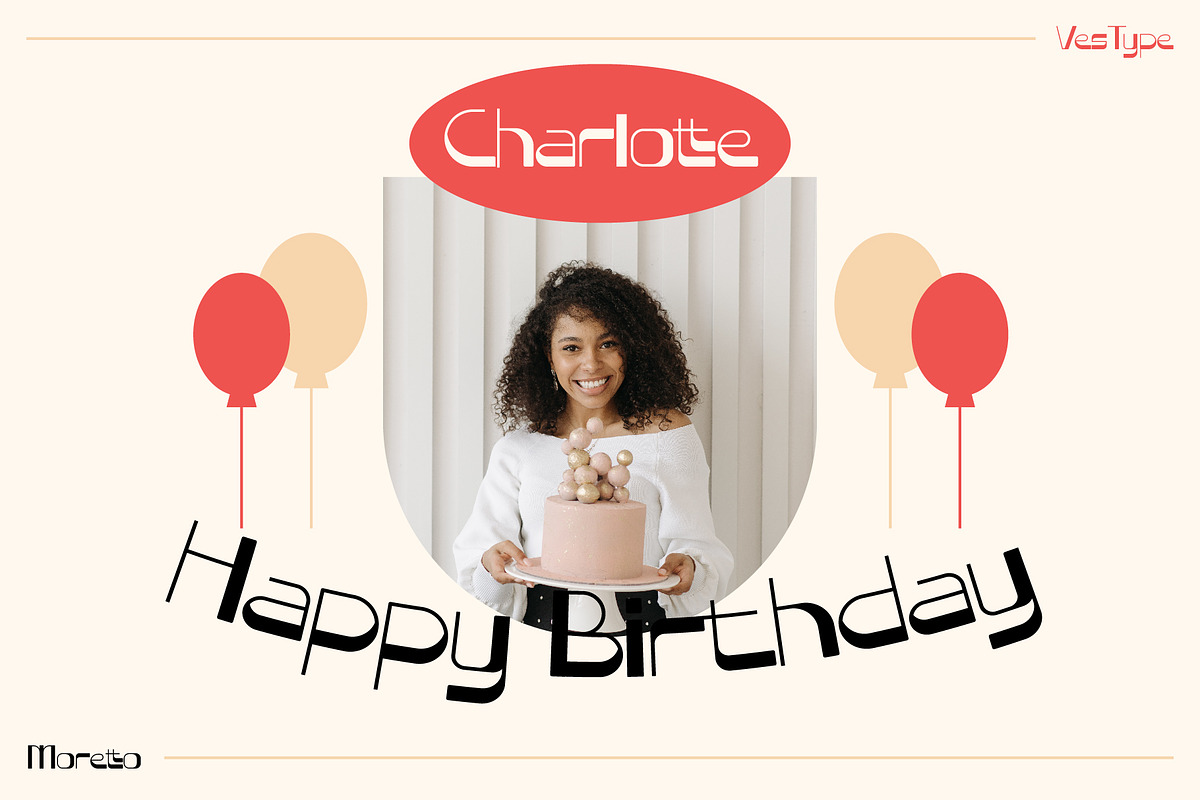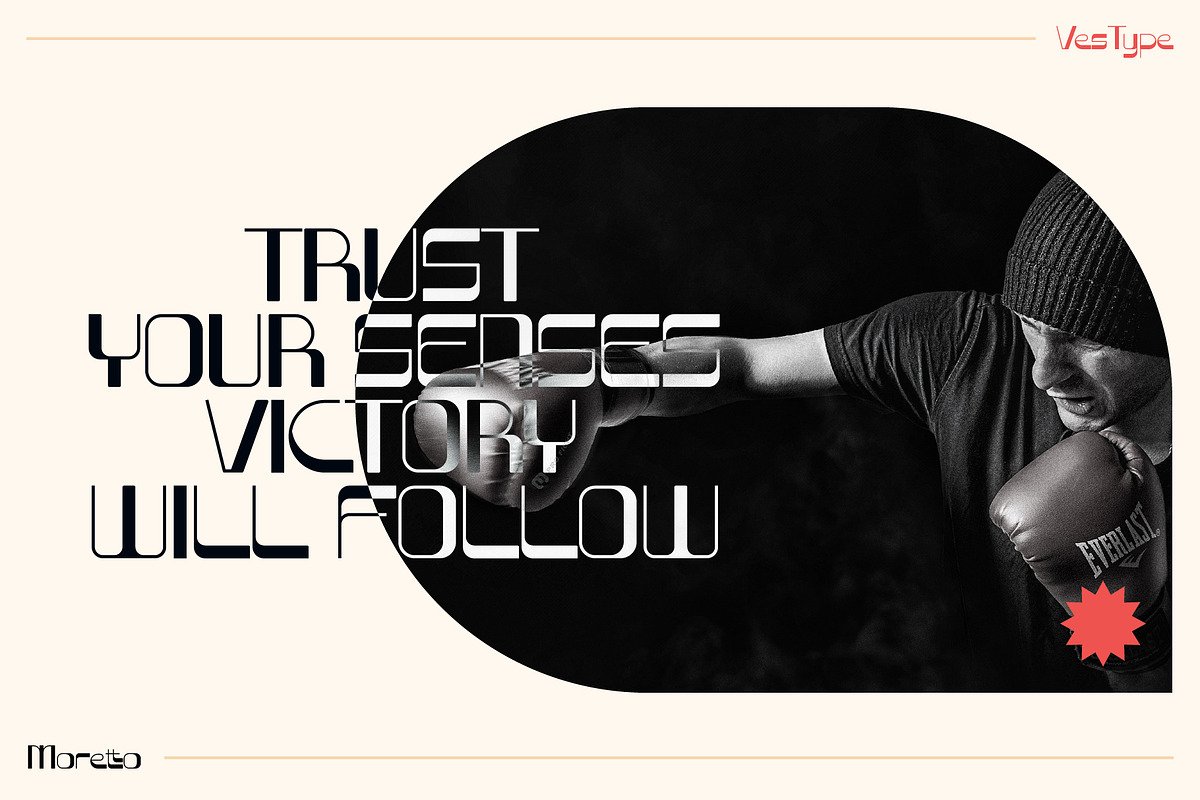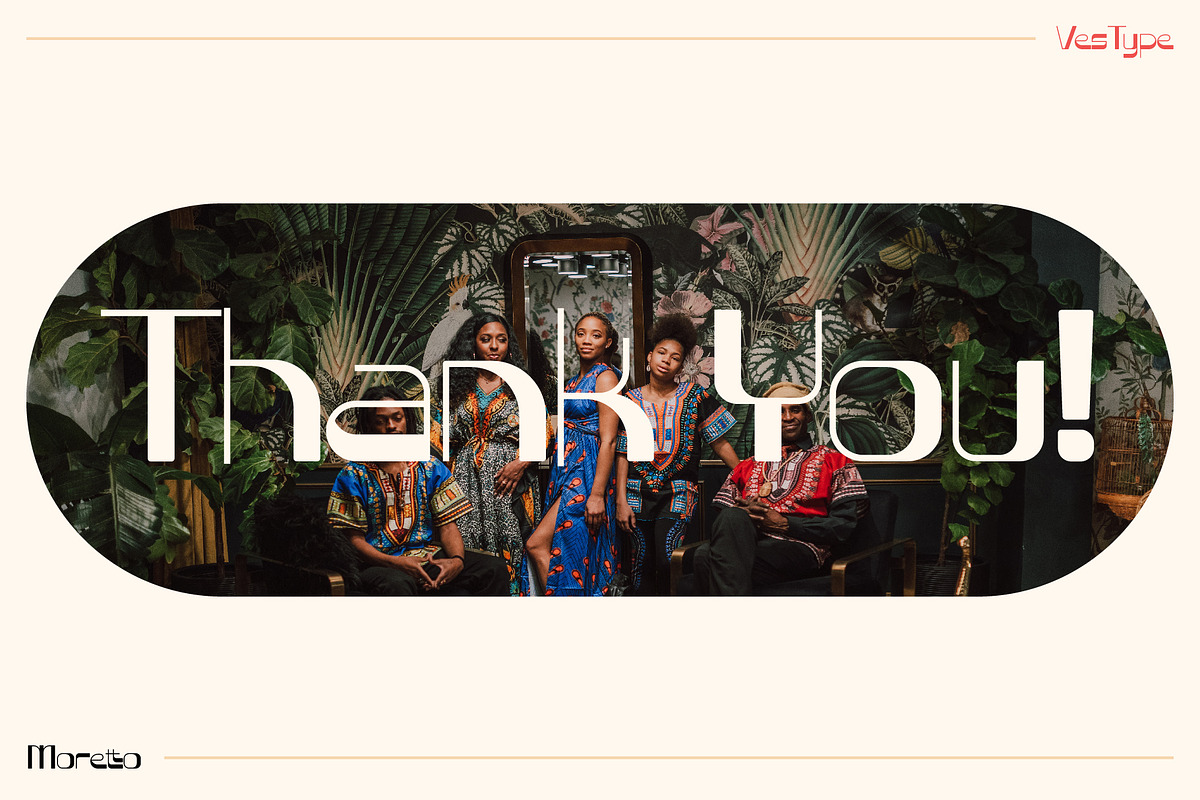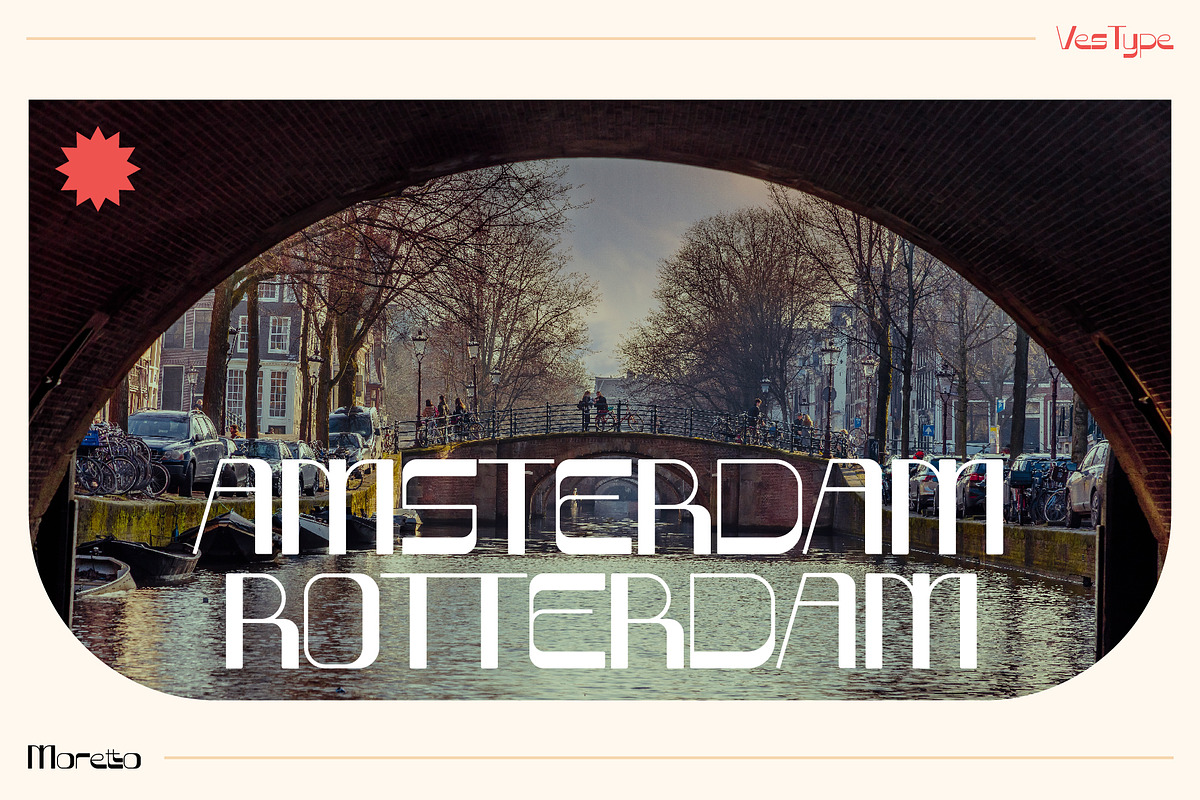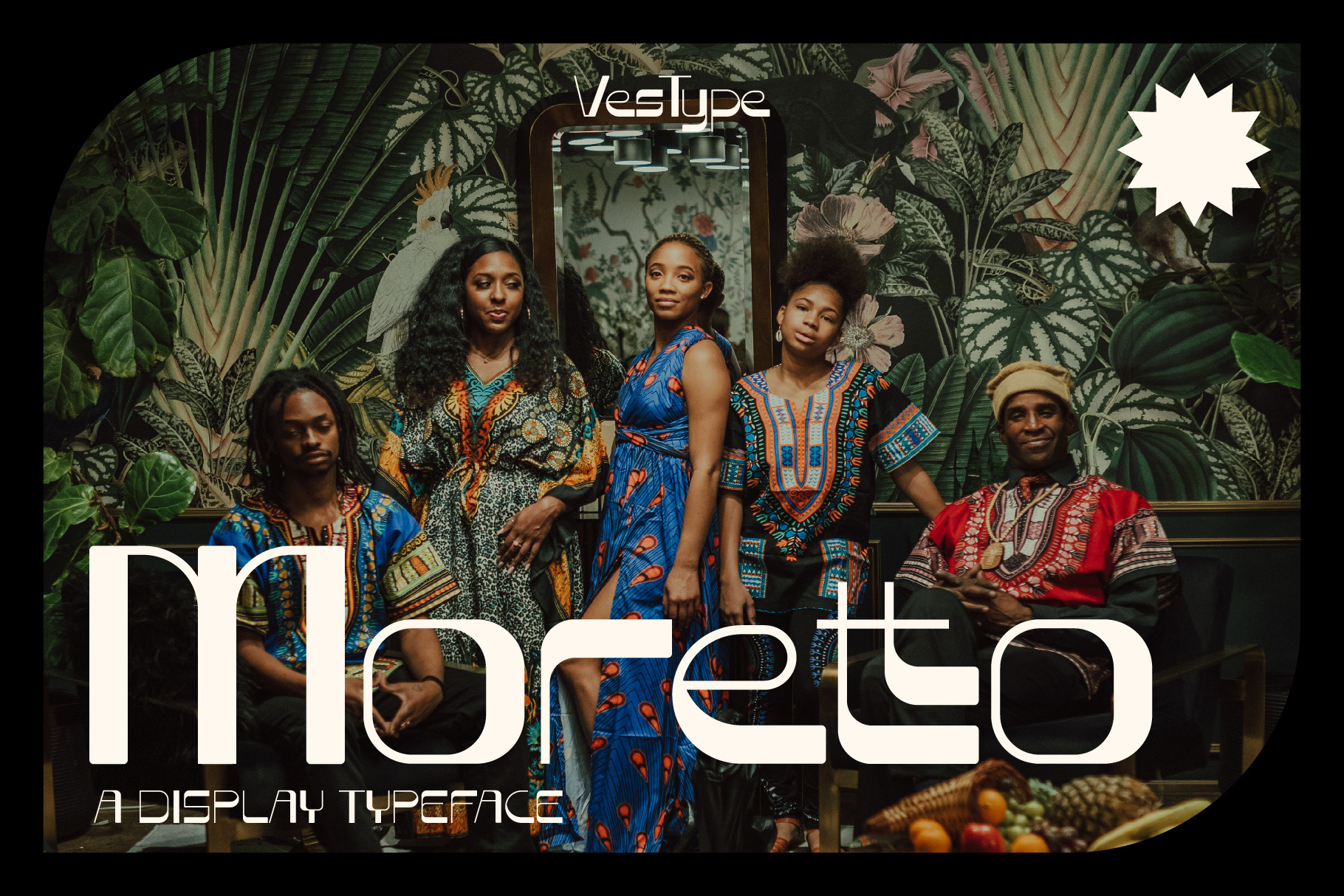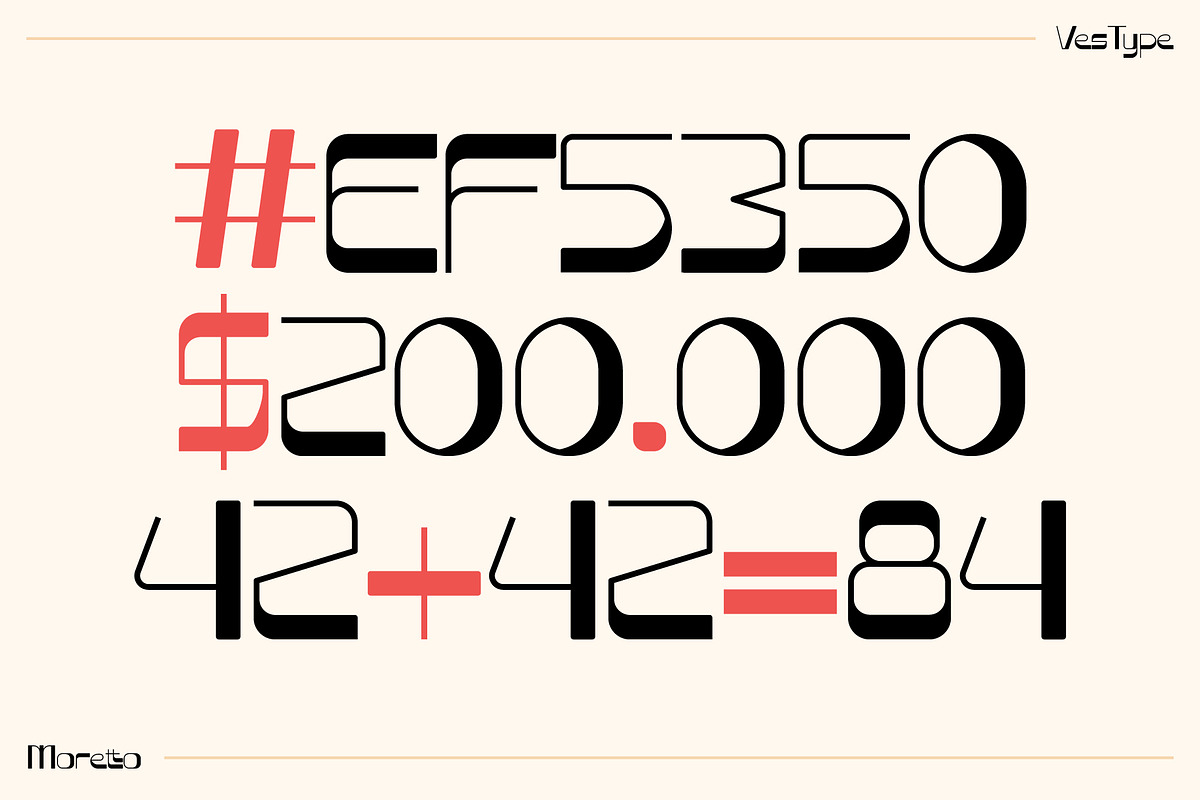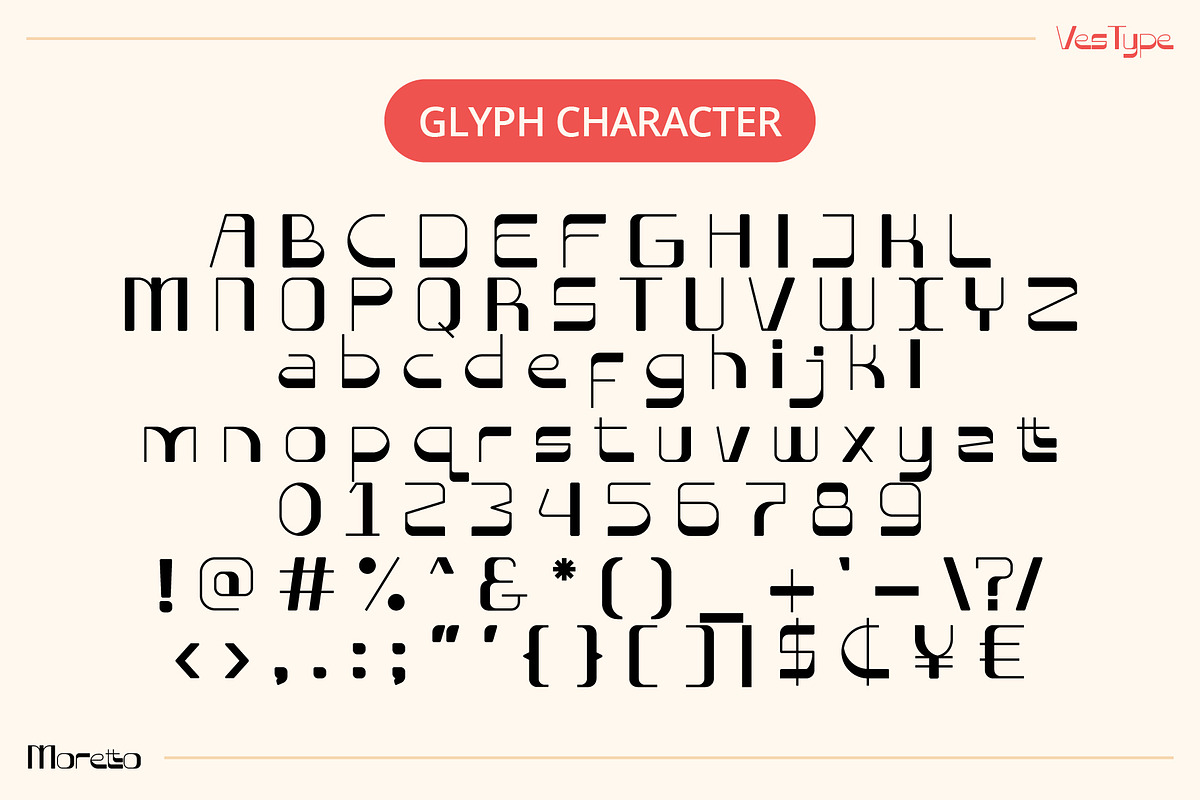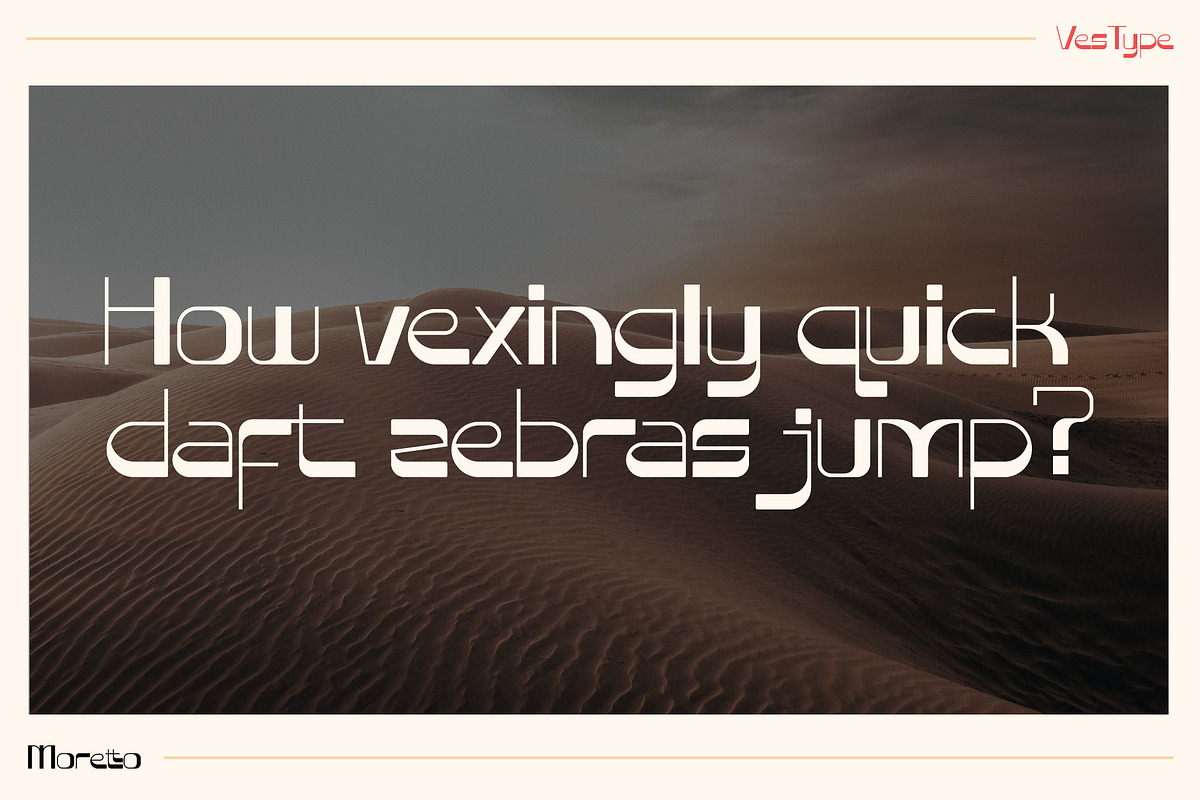
Moretto Display Font - VesType
Moretto Display Font by Vestype
Introducing Moretto our very first display font, suit to make stunning Logotype, Quote, Invitation, Social Media Post and more.